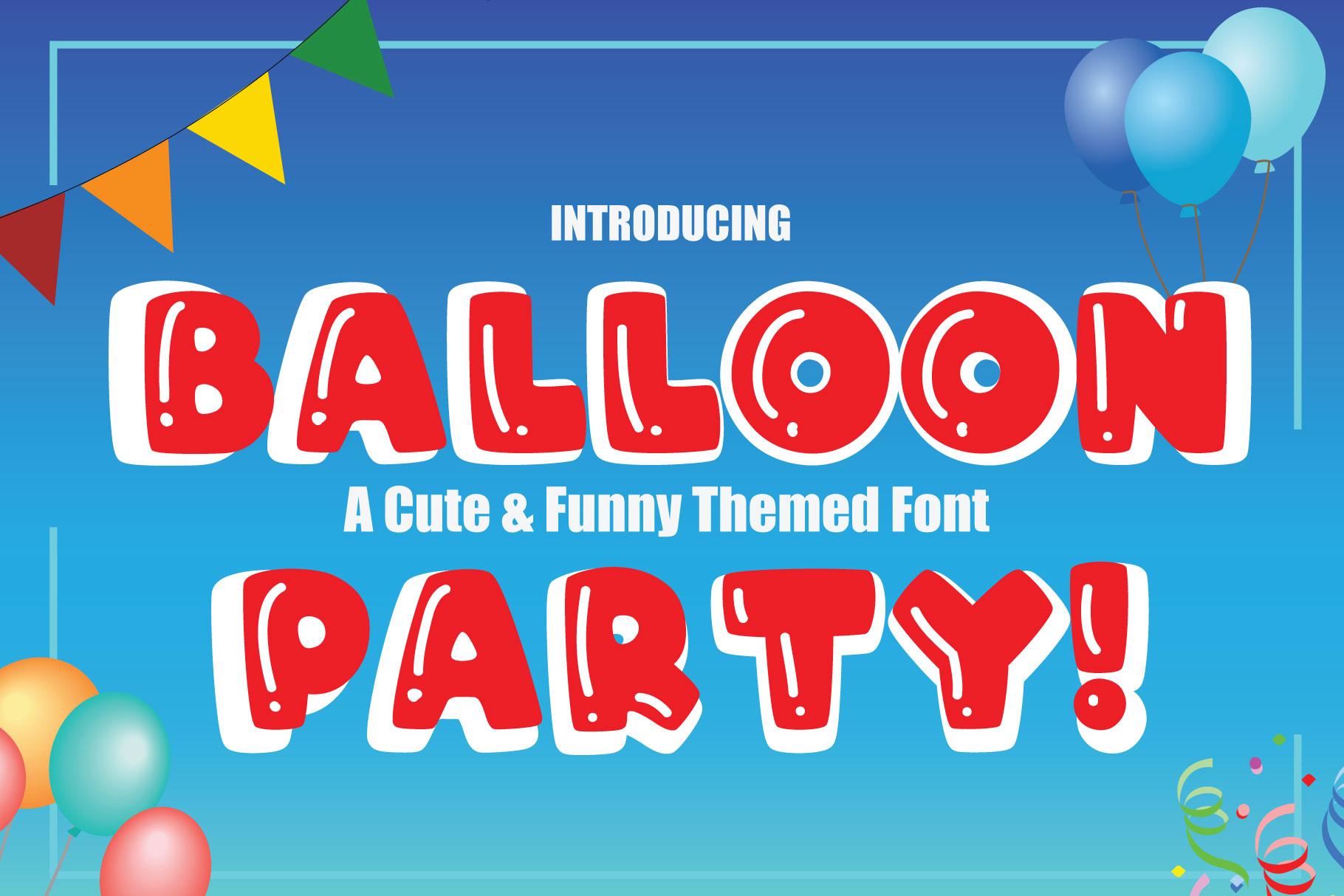
Balloon Party! Font Description
Balloon Party! is a bubbly and trendy display font. It embodies playfulness and authenticity and is the perfect choice for any children activity or school project. Add this chunky lettered font to your designs and notice how it makes them come alive!